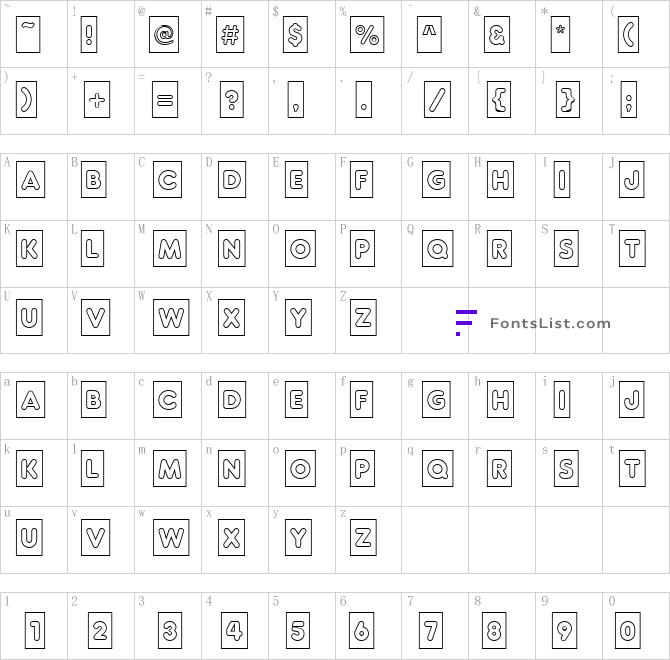
a_RunderCameoOutline.ttf is a very beautiful artistic font, a_RunderCameoOutline.ttf is widely used in the design and printing of various books and pictures,a_RunderCameoOutline.ttf has a strong visual impact,a_RunderCameoOutline.ttf is a commonly used font in newspapers, magazines and books, and is used in posters, e-commerce Poster design, store design, logo design, font design and other fields.a_RunderCameoOutline.